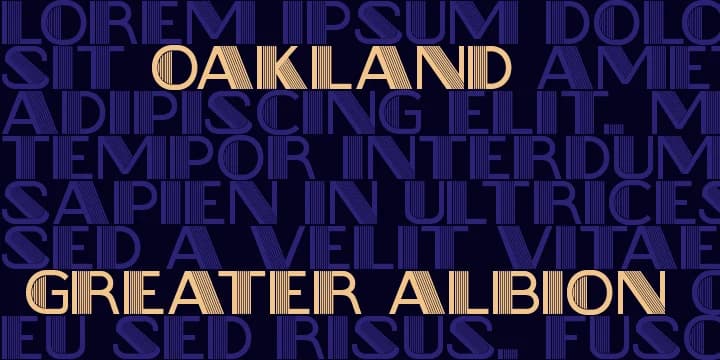
OAKLAND, designed by Greater Albion Typefounders, captures the geometric vocabulary of 1930s French automotive advertising lettering. The rounded, streamlined forms carry unmistakable hand-drawn confidence from the Streamline Moderne era, that brief and brilliant moment when cars, locomotives, and typography all sang the same sleek industrial song. Every character embodies that period's utopian optimism, rendered entirely in capitals with crisp, deliberate letterforms that command respect and attention.
This all-caps typeface excels in vintage poster design work, where its bold geometric shapes grab attention with authority rather than aggression. It's perfectly suited to retro brand identity projects demanding authentic period character, decorative label design for vintage-inspired packaging lines, and art deco-themed wedding invitation suites. Boutique restaurant menus, record label reissues, and promotional materials for 1930s-themed events all gain immediate credibility from OAKLAND's distinctive character. The capitals-only constraint, rather than limiting, actually enforces a formal elegance that feels entirely right for period-specific design work.
OAKLAND Font is a decorative font that shines as a display or heading face. Pair it with a clean sans-serif or serif font for body text β the contrast creates a clear hierarchy while the two styles stay balanced and easy to read.
OAKLAND Font
by Greater Albion Typefounders